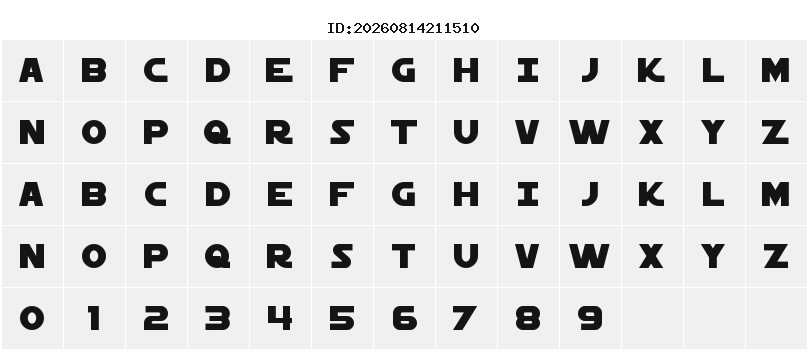
• Font Name: Starkiller
• Designer: Neale Davidson
About Starkiller.ttf
Starkiller.ttf is a modern, elegant sans-serif font designed for ultimate readability and visual harmony. Perfect for branding, headlines, web design, and print materials.